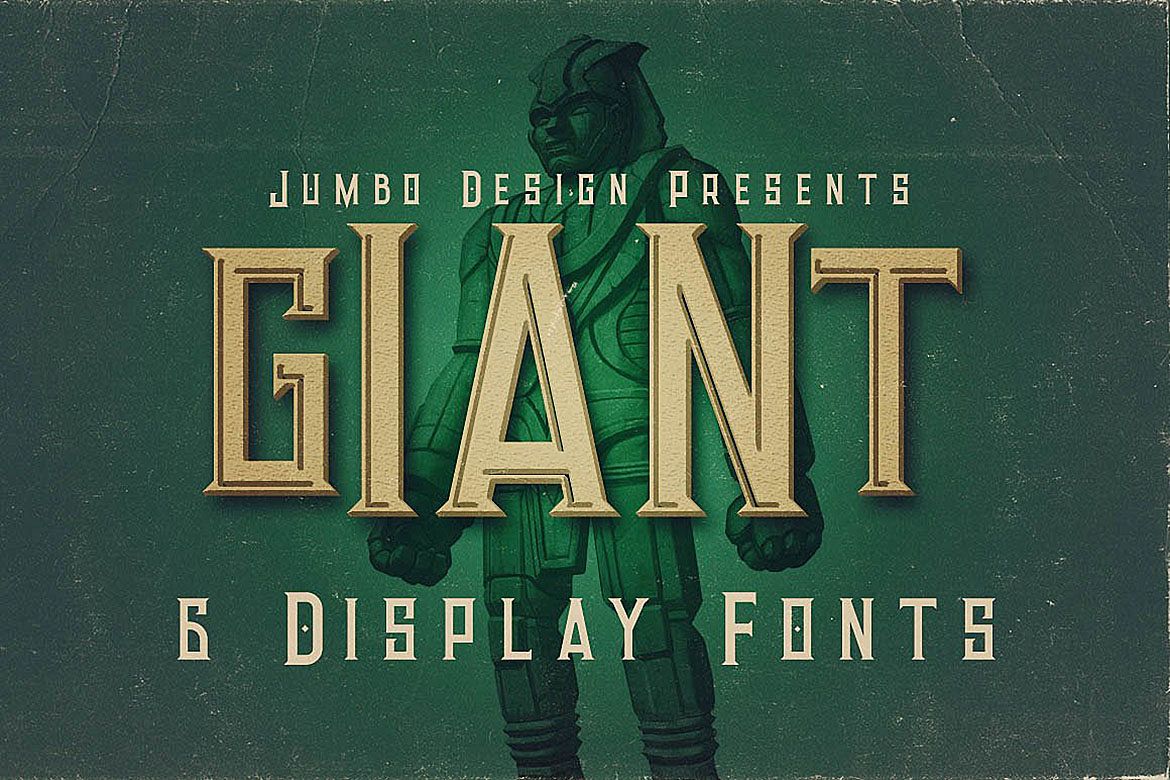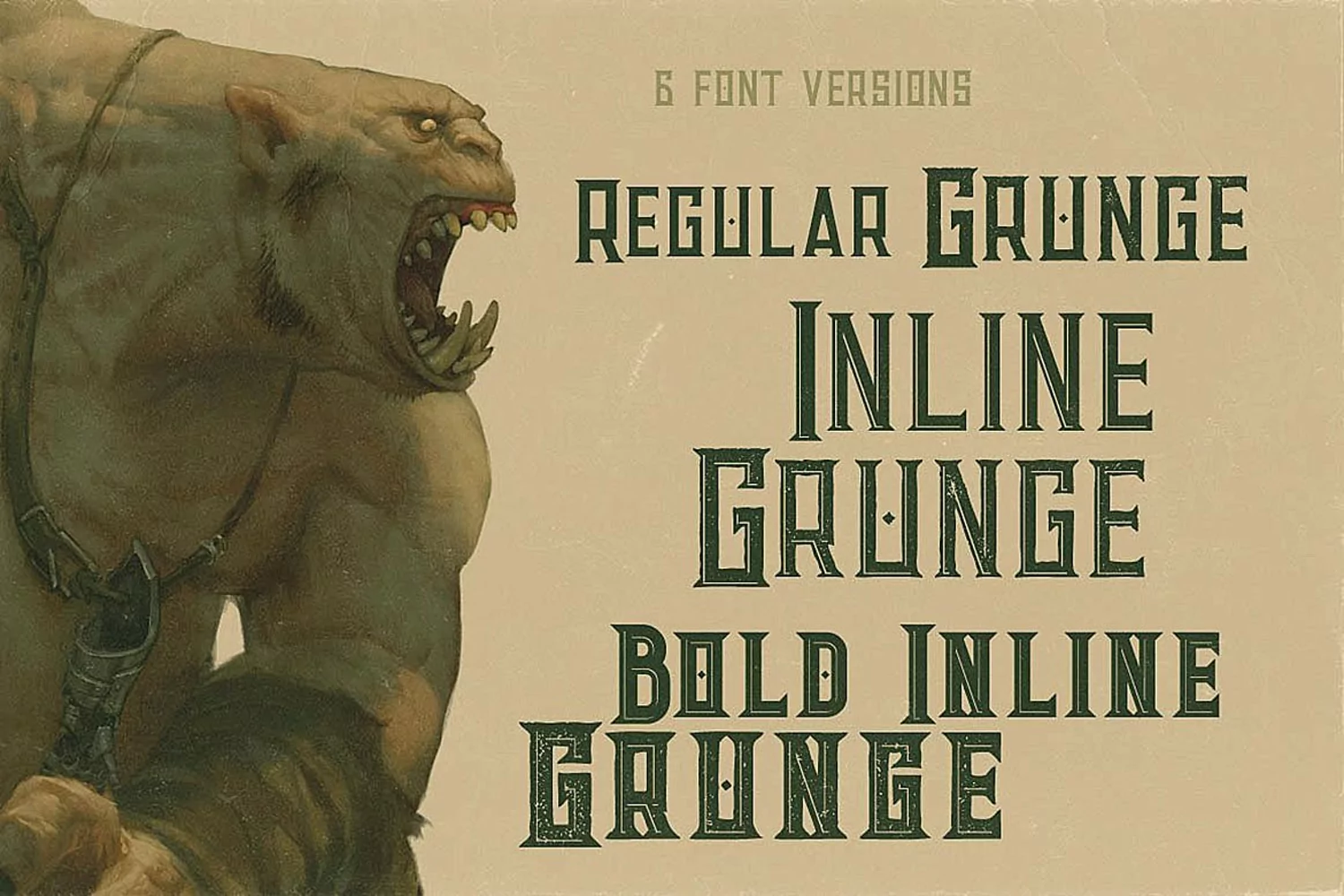
Giant - Vintage Style Font
Unique retro or vintage style custom serif font with 6 styles: regular and grunge, inline and inline grunge, bold inline and bold inline grunge.